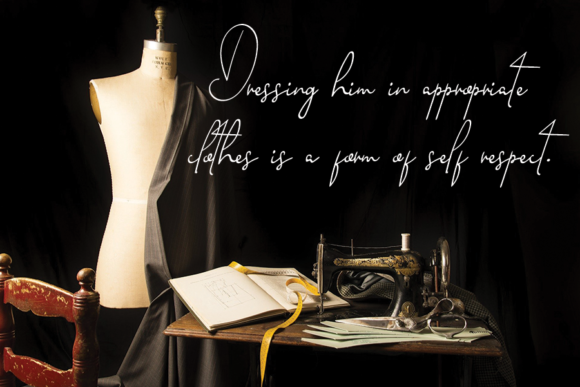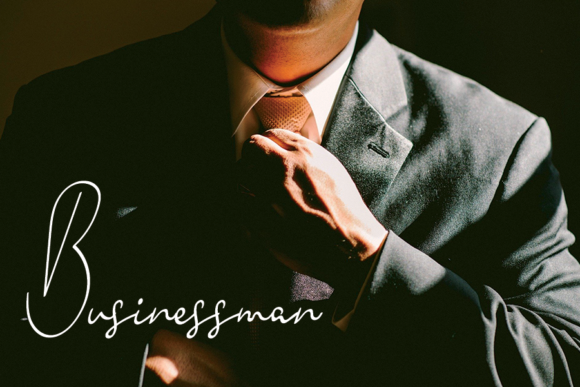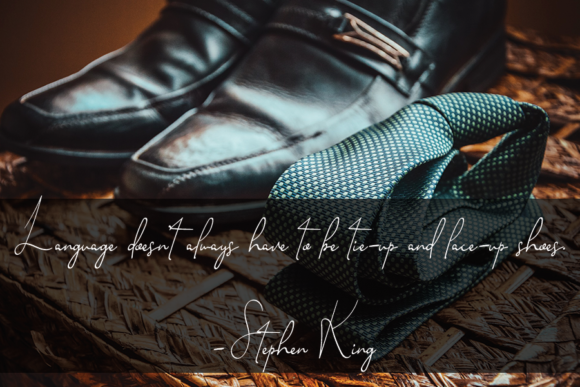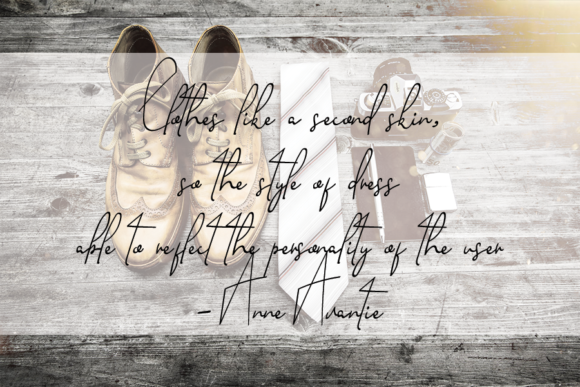
Introducing Handsome Tailor Font: A Dainty and Sweet Script Font
Are you a designer or crafter looking for a font that can add a touch of elegance and sophistication to your creations? Look no further than the Handsome Tailor font. This beautifully crafted script font is perfect for a wide range of projects, from wedding invitations and party decor to branding and advertising materials.
What Makes Handsome Tailor Font So Special?
Handsome Tailor is a dainty and sweet script font that is neatly crafted and highly detailed. Its unique and elegant design makes it stand out from other fonts, and its versatility ensures that it can be used for a wide range of applications. Whether you’re creating a romantic wedding invitation or a bold advertising campaign, Handsome Tailor font is sure to make a lasting impression.
Key Features of Handsome Tailor Font
- Dainty and Sweet Design: Handsome Tailor font features a delicate and charming design that is perfect for creating elegant and sophisticated text.
- Highly Detailed: This font is meticulously crafted with attention to detail, ensuring that every letter and character is perfectly formed.
- Versatile: Handsome Tailor font can be used for a wide range of projects, from wedding invitations and party decor to branding and advertising materials.
- Elegant and Sophisticated: This font’s unique design makes it perfect for creating text that exudes elegance and sophistication.
- Wedding Invitations: Use Handsome Tailor font to create beautiful and elegant wedding invitations that set the tone for a romantic and memorable wedding.
- Party Decor: Add a touch of elegance to your party decor with Handsome Tailor font. Use it to create custom banners, garlands, and other decorative elements.
- Branding and Advertising: Use Handsome Tailor font to create eye-catching branding and advertising materials, such as logos, business cards, and brochures.
- Digital Designs: Handsome Tailor font can also be used in digital designs, such as social media graphics, blog posts, and website headers.
- Use it Sparingly: Handsome Tailor font is a statement font, so use it sparingly to add emphasis and elegance to your designs.
- Pair it with Other Fonts: Experiment with pairing Handsome Tailor font with other fonts to create a unique and visually appealing design.
- Adjust the Size and Color: Adjust the size and color of Handsome Tailor font to suit your design needs and create a cohesive look.
In conclusion, Handsome Tailor font is a beautiful and versatile script font that can add a touch of elegance and sophistication to any design. Its dainty and sweet design, highly detailed craftsmanship, and versatility make it a valuable asset to any font library. Whether you’re a designer or crafter, Handsome Tailor font is sure to become a go-to font for all your design needs.
Overall, Handsome Tailor font is a beautiful and versatile font that can add a touch of elegance and sophistication to any design. Its unique design, highly detailed craftsmanship, and versatility make it a valuable asset to any font library.